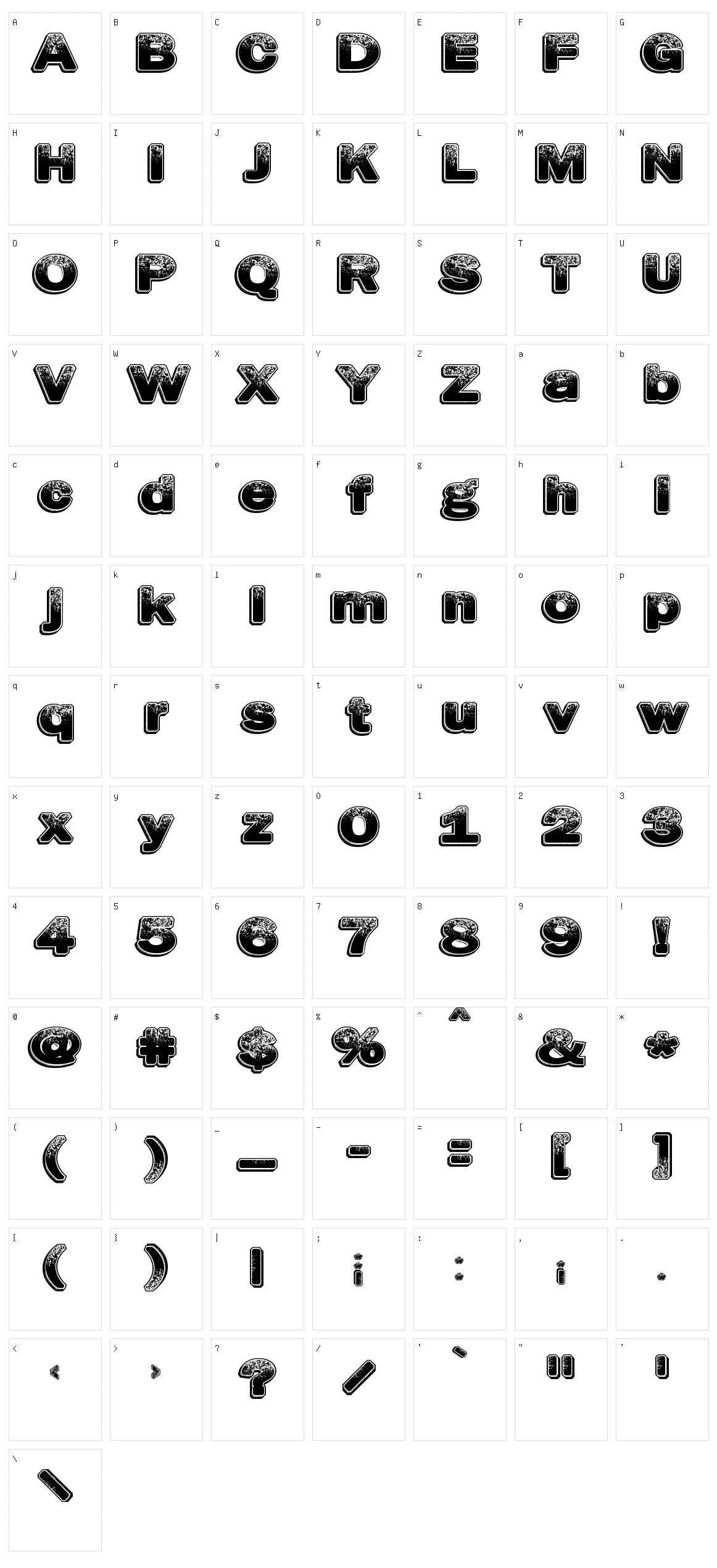
The free font Dusty Hotels is carefully designed by Xerographer Fonts, showcasing a thoughtful balance of creativity and usability and falls under the Eroded font style. When you download the ZIP file, it contains only 442.86 KB of font files, making it lightweight and quick to download. Please review the license details below to understand permitted usage and distribution rights. If license information is not available, we recommend using this font for personal projects only or contacting the author directly for commercial usage permissions.